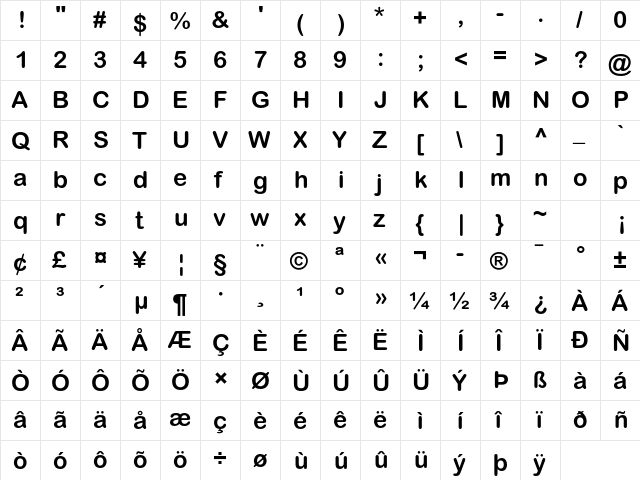
Arial Rounded MT Std Bold Font Preview
Arial Rounded MT Std Bold
Arial Rounded MT Std Bold Font Details
| Foundry | Agfa Monotype Corporation |
Design Context for Arial Rounded MT Std Typeface
Arial Rounded MT Std uses gentle rounded endings to create a warm, inviting typographic personality — less corporate than geometric sans, more refined than playful display fonts. The heavy weight commands attention and anchors typographic hierarchies.
A natural fit for tech startups, health and wellness brands, children's products, and friendly consumer apps.
Font Pairing: Pairs well with a rounded or humanist sans for body copy, maintaining the friendly tone without relying on Arial Rounded MT Std to carry extended reading.
Pro Tip: Pair Arial Rounded MT Std with a geometric sans for a balanced system — the rounded softness works as a warm counterpoint to harder-edged companions.